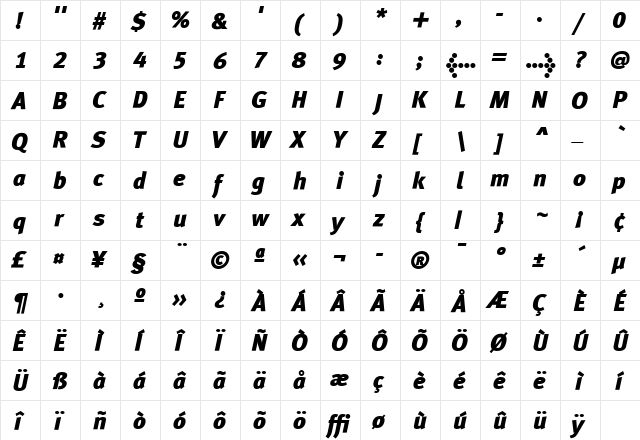
MetaPlusLining Black Italic
MetaPlusLining offers clean, dependable letterforms without strong stylistic allegiance, making it a practical choice for designers who need flexibility. The slanted form adds forward momentum and visual energy.
Pro Tip: Try MetaPlusLining for annotation and caption copy alongside an upright companion — the contrast in angle creates a dynamic but ordered typographic system.